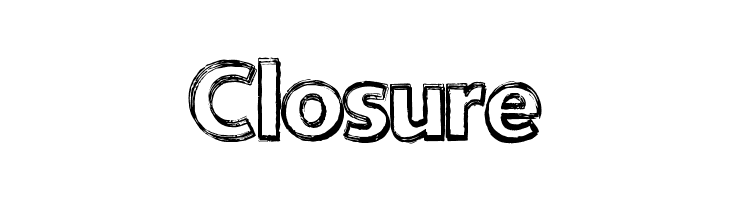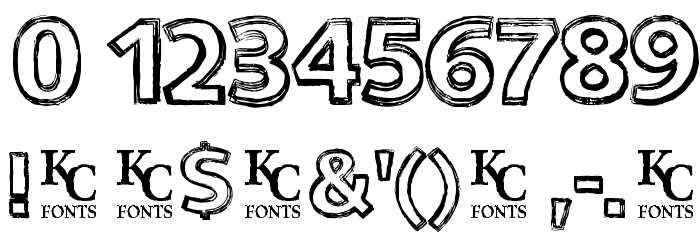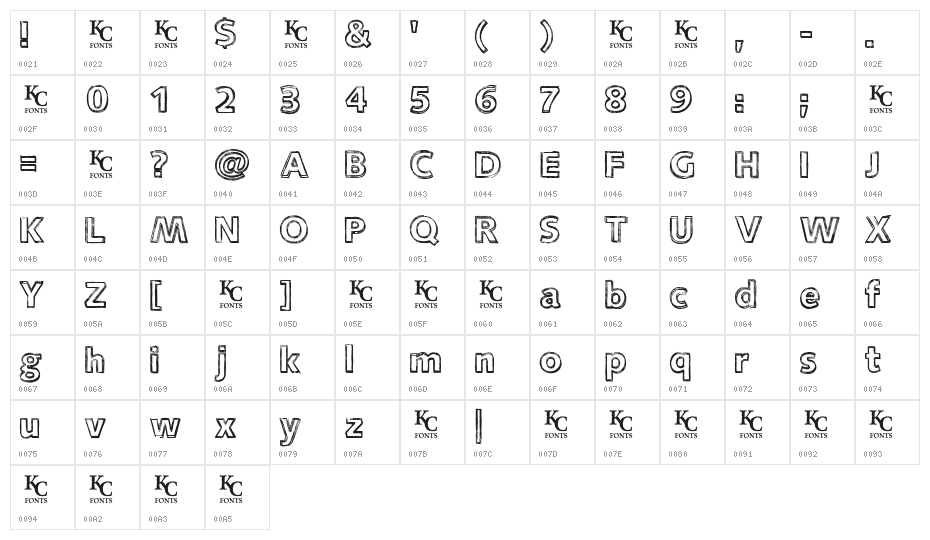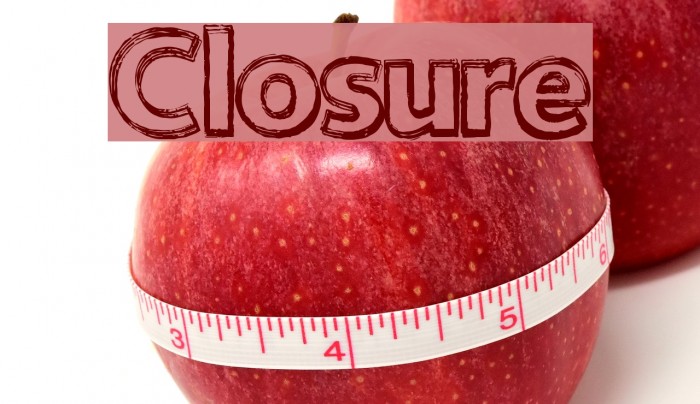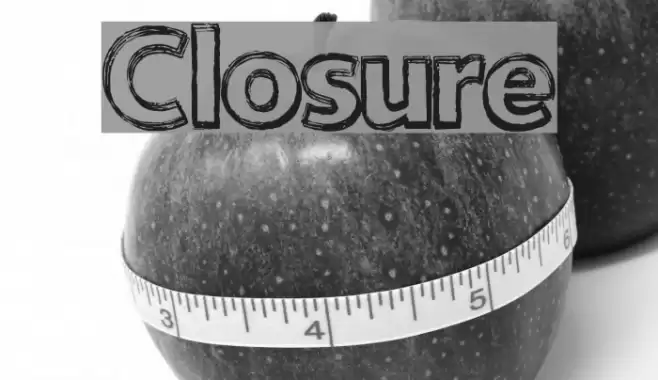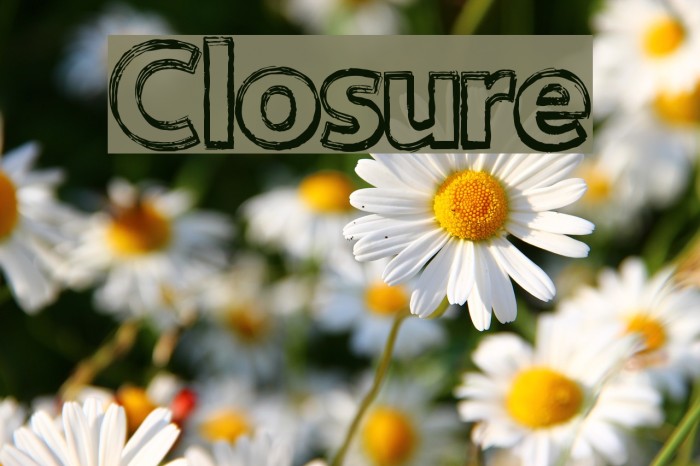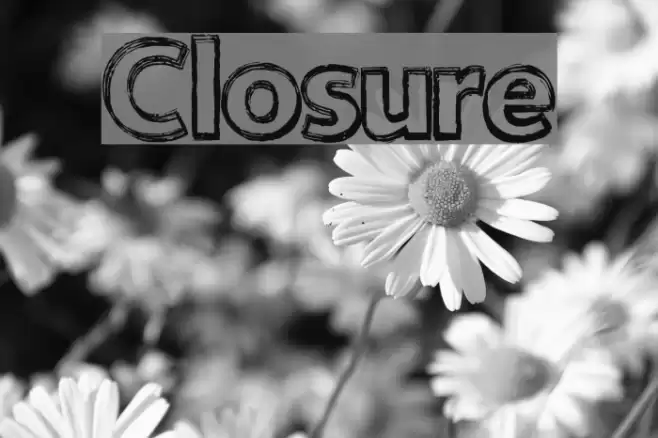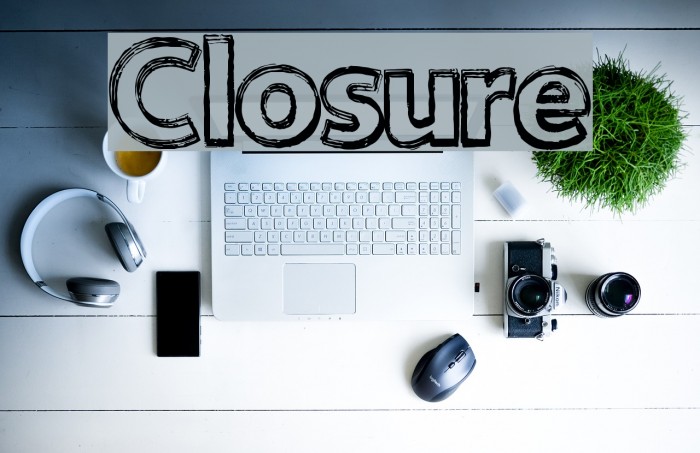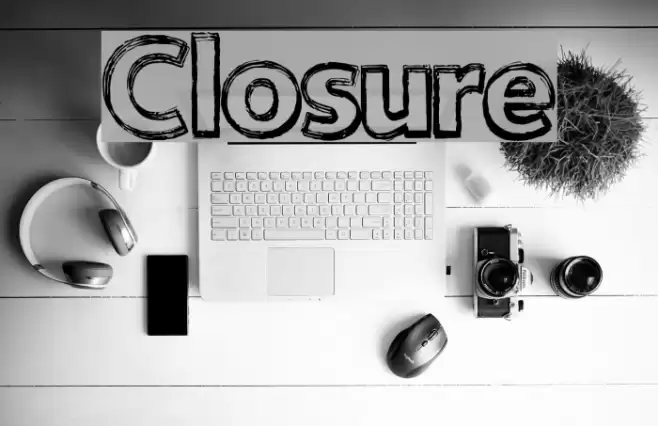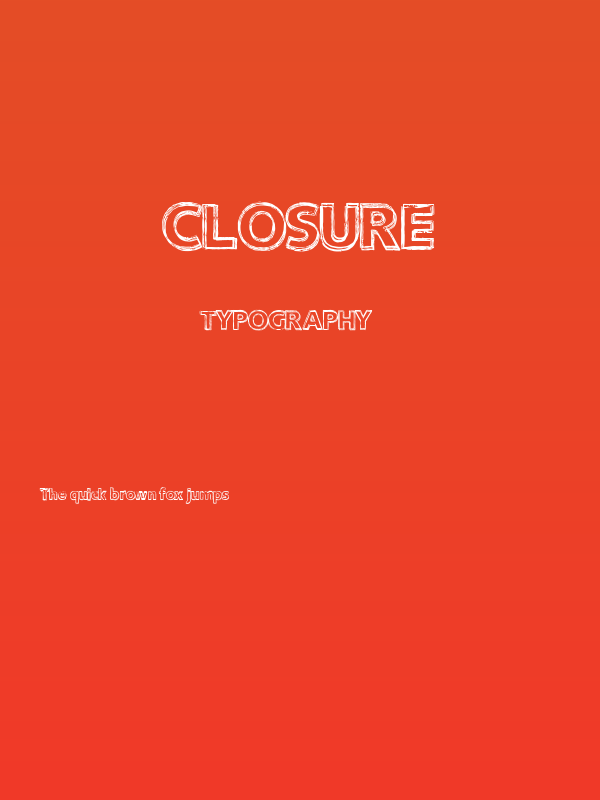
Closure Font
Closure Description
This font features a bold, hand-drawn style with a sketch-like appearance. Each character is outlined with a rough, textured line that gives it a unique, artistic feel. The uppercase and lowercase letters maintain a consistent width, while the numbers and special characters follow the same design aesthetic. The font's playful and informal style makes it stand out, with a slightly irregular and organic look that adds character and charm. The overall design is both eye-catching and versatile, suitable for a variety of creative projects.
| Overall Style | Artistic, Playful |
| Proposed Projects | Ideal for posters, creative branding, children's books, and artistic projects. |